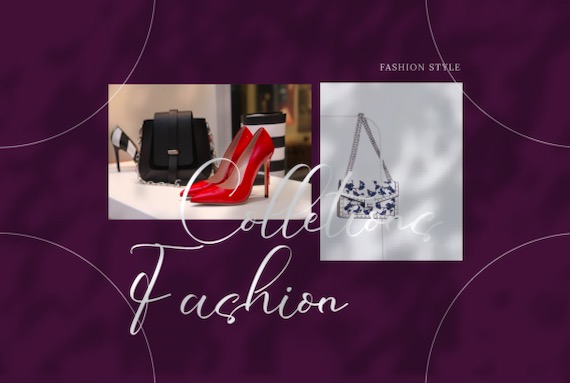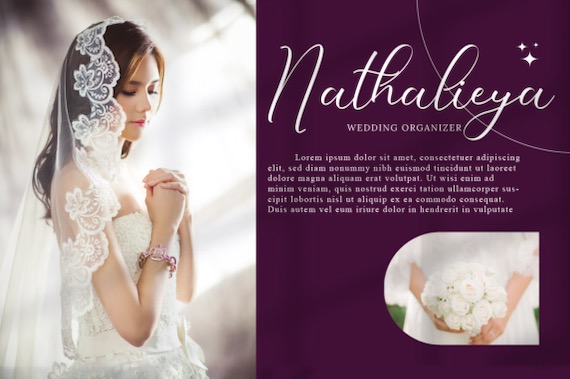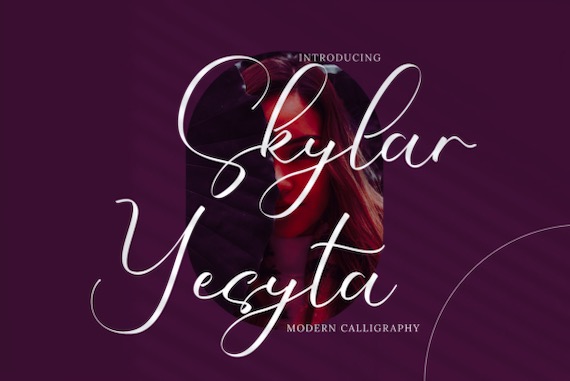
Skylar Yesyta Font is an elegant and beautiful handwritten script typeface that was created and shared by Circle Studio. With its unique features, you can use this calligraphy script font for various projects, such as blog posts, logos, branding, ads, invitations, greeting cards, planners, photo albums, decorations, and much more.
Skylar Yesyta Calligraphy Script Font